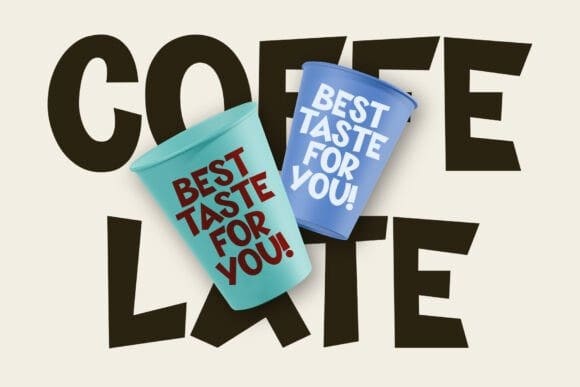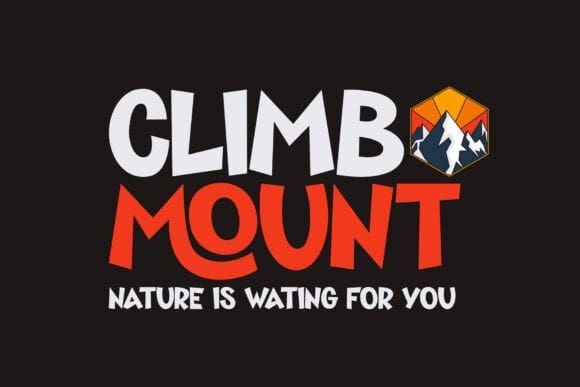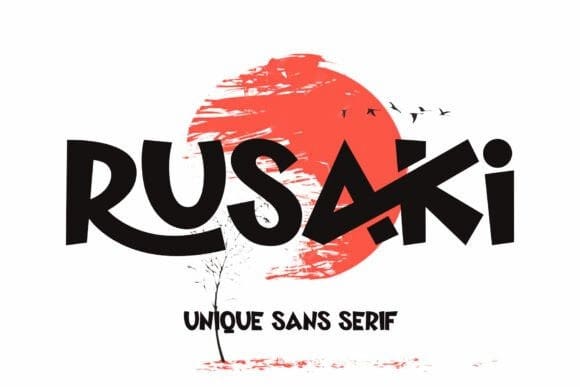
Rusaki Font
Rusaki Font is a unique and sleek sans-serif font that brings energy, action, and a touch of distinctiveness to your creative projects. Its solid and compact letterforms are enriched with unconventional design details, creating a fresh and stylish visual character. The unique elements of Rusaki give it a bold and futuristic impression, making it an ideal choice for gaming logos, esports branding, and action-themed designs that require a distinctive identity.